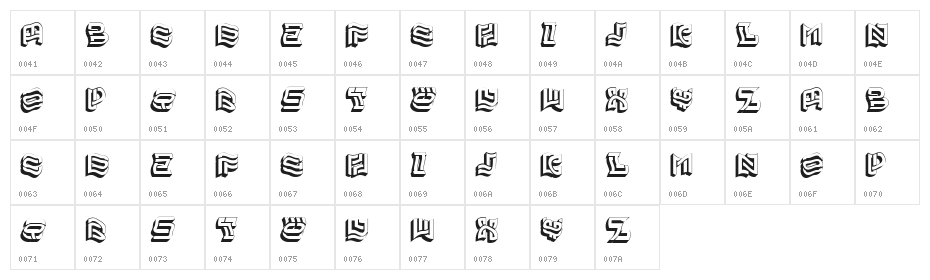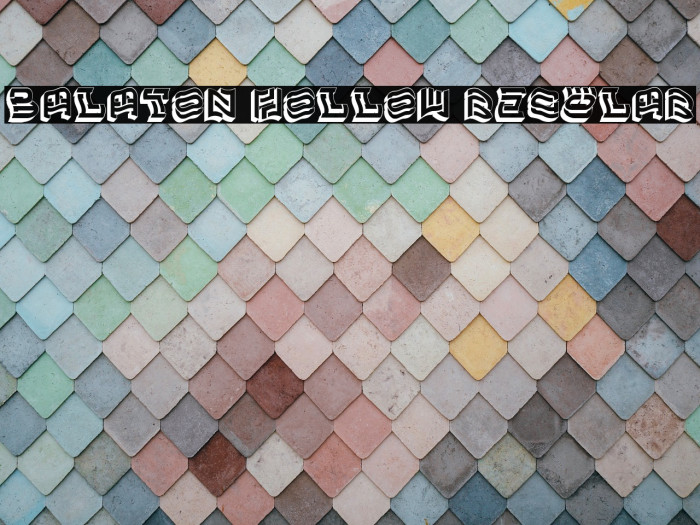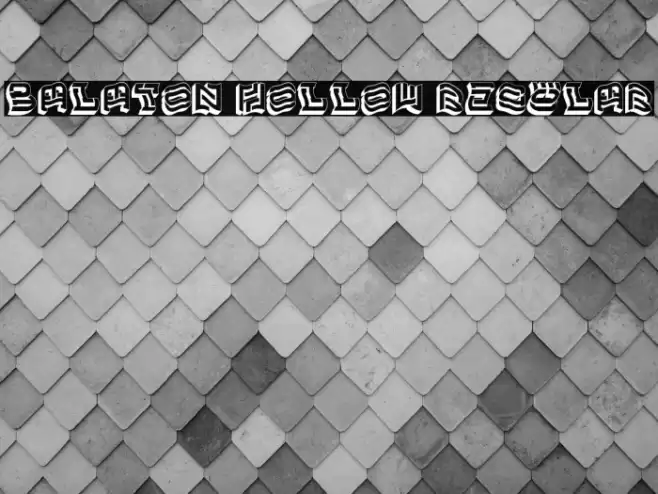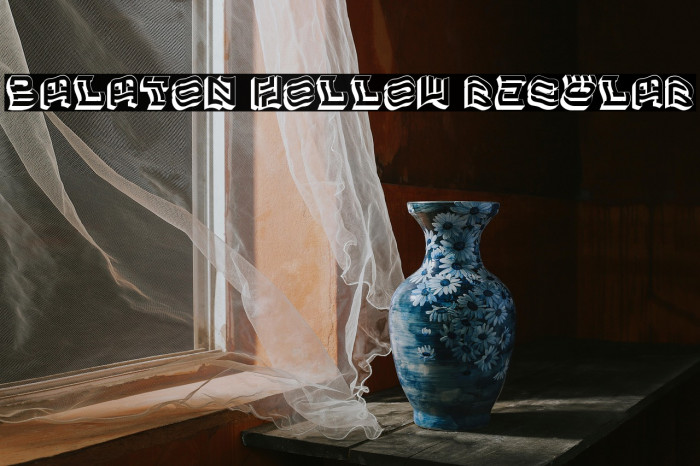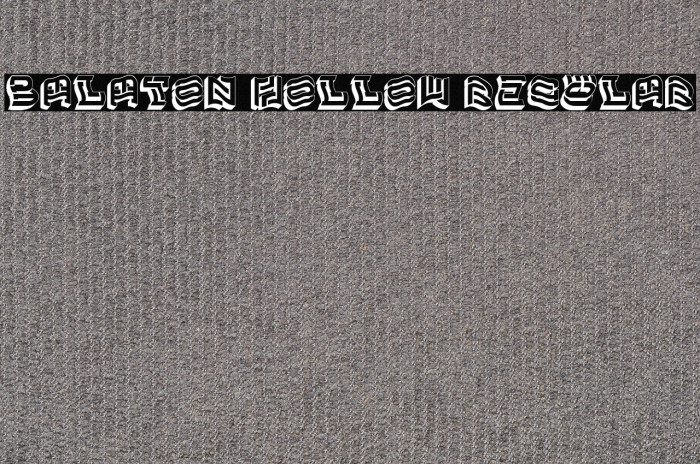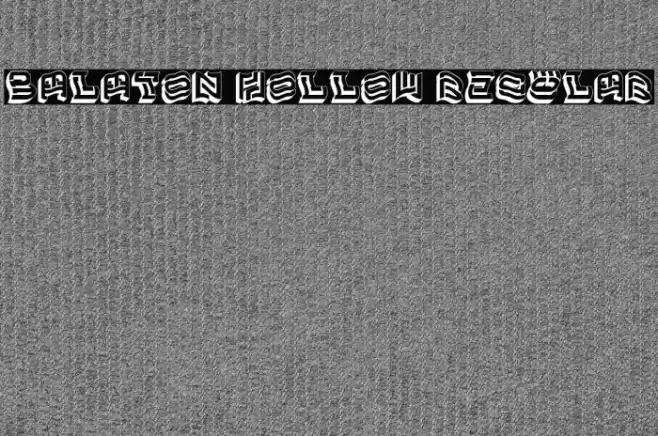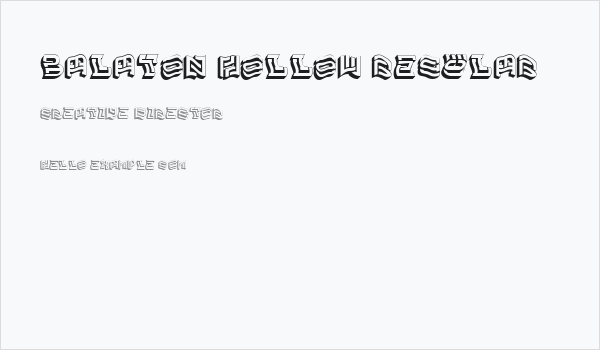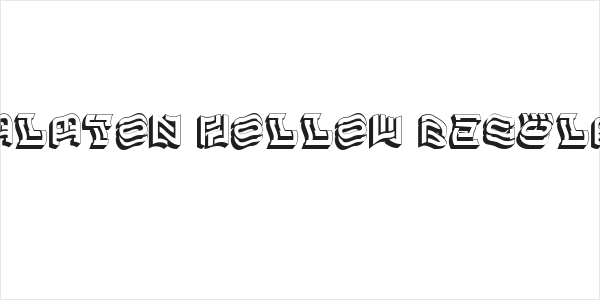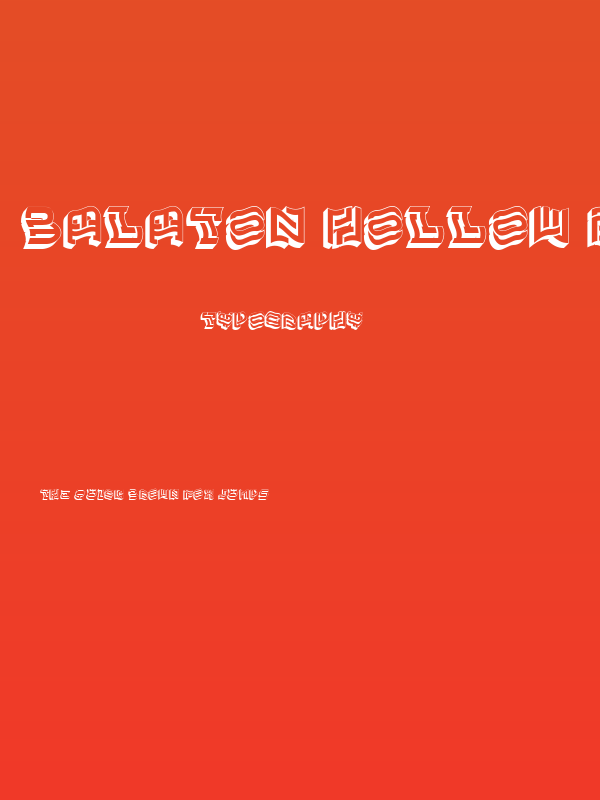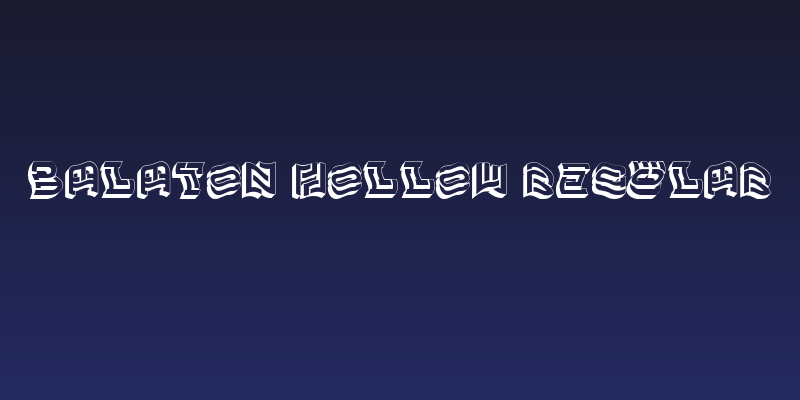
Balaton Hollow Regular Font
Balaton Hollow Regular Description
This font features a bold, three-dimensional style with hollow interiors, creating a striking visual effect. The characters are designed with sharp angles and geometric shapes, giving them a futuristic and dynamic appearance. The use of shadows and outlines enhances the depth and makes each letter stand out prominently. This font is highly decorative and captures attention with its unique, layered structure. It is ideal for projects that require a bold statement and a modern, edgy look.
| Proposed Projects | Perfect for posters, album covers, video game titles, and any project needing a bold, futuristic aesthetic. |